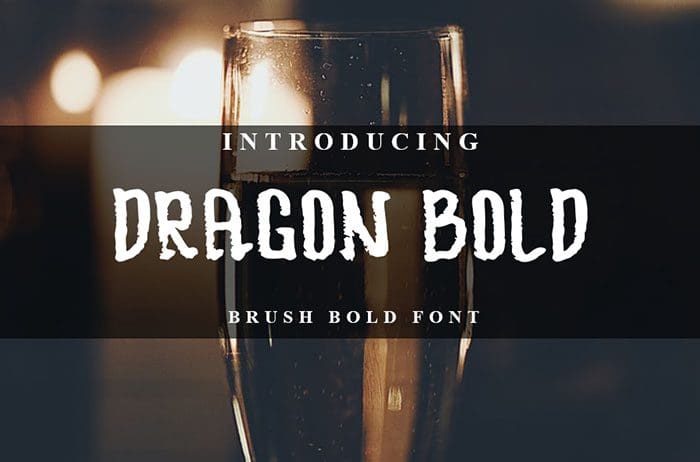
Dragon Bold Handwritten Font
Dragon bold handwritten font, created by using a brush pen. Clean and a little bit quirky, this font is the perfect fit for all of your logos, branding, social media, and crafty DIY projects. Designed this font by Inermedia Studio. You can also search more freeĀ Handwritten Fonts.